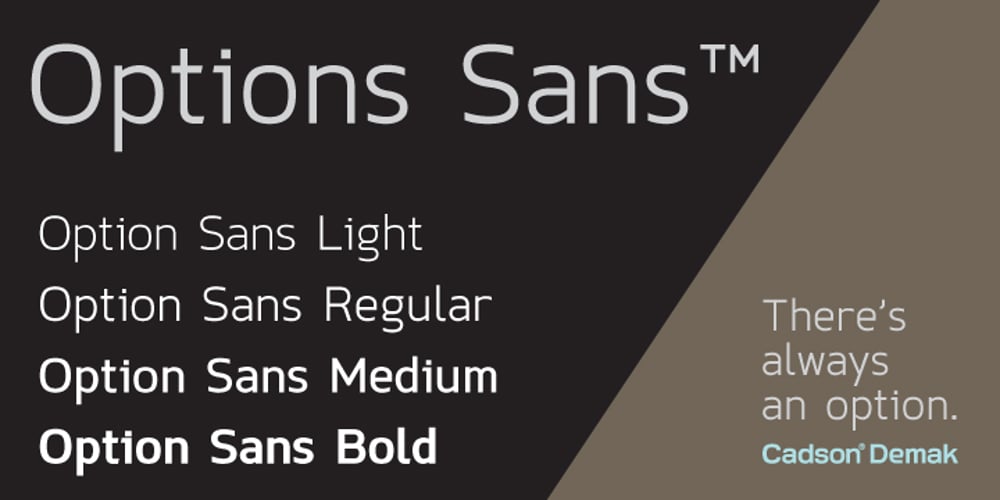
Option Sans
Option Sans font
Option Sans Font Family was designed by Anuthin Wongsunkakon and published by Cadson Demak. Option Sans contains 4 styles and family package options. Option Sans is a rework of Anuthin Wongsunkakon’s Coupe. The popular font originally sold by T26 has now been humanized. Improved legibility from the original Coup to serve better as fine text font.